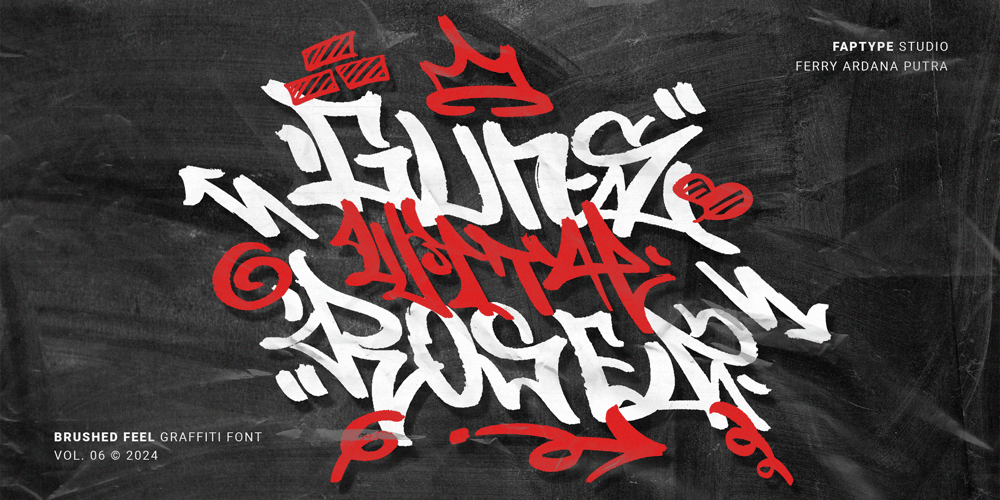
Guns With Rosez Graffiti Font Family was designed by Ferry Ardana Putra and published by Ferry Ardana Putra. Guns With Rosez Graffiti contains 1 styles and family package options. Introducing “Guns With Rosez,” a bold and rebellious graffiti font that adds an edgy touch to your designs. This brushed feel font captures the essence of street art with its rough and hardcore vibe, making it perfect for projects that demand attitude and personality.Designed with versatility in mind, “Guns With Rosez” supports various foreign languages and offers both uppercase and lowercase characters, allowing you to express your message with authenticity and flair. Whether you’re creating posters, album covers, or urban-inspired branding, this font delivers the punch you need to stand out.Inspired by the raw energy of tagging graffiti markers in the streets and influenced by real experiences in the graffiti scene, “Guns With Rosez” brings the essence of urban culture to life. Its iconic rounded tip marker style is favored by graffiti artists worldwide for its unique and entertaining writing experience, ensuring that your designs make a bold statement.But “Guns With Rosez” doesn’t stop there. It comes packed with street graffiti ornaments that add an extra layer of authenticity and creativity to your projects. With this font, you can unleash your inner rebel and leave your mark on the world.Get ready to make a statement with “Guns With Rosez” – the ultimate choice for anyone who wants to infuse their designs with urban grit and attitude.Versatile Applications: Album Covers Streetwear Apparel Graffiti Art Exhibitions Hip-Hop Posters and Flyers Skateboard Deck Graphics Street Art Murals Digital Marketing for Urban Brands Tattoo Designs Event Branding for Underground Shows Urban-themed Video Games Graffiti-inspired Branding Youth-Centric Social Media Graphics Guns With Rosez features: A full set of uppercase and lowercase Numbers and punctuation Multilingual language support PUA Encoded Characters OpenType Features Layered Style +328 Total Glyphs +95 Graffiti Swashes and Ornaments included!